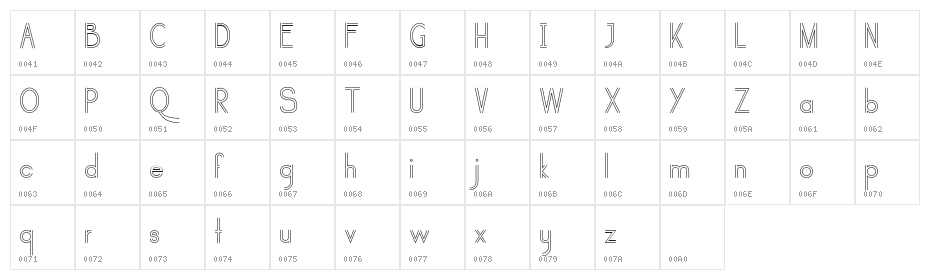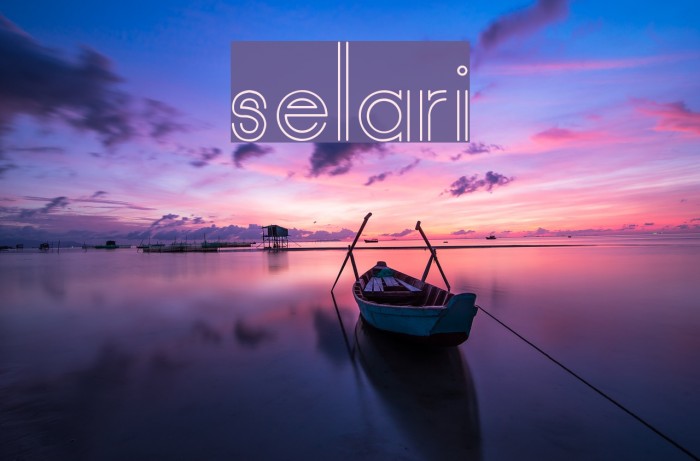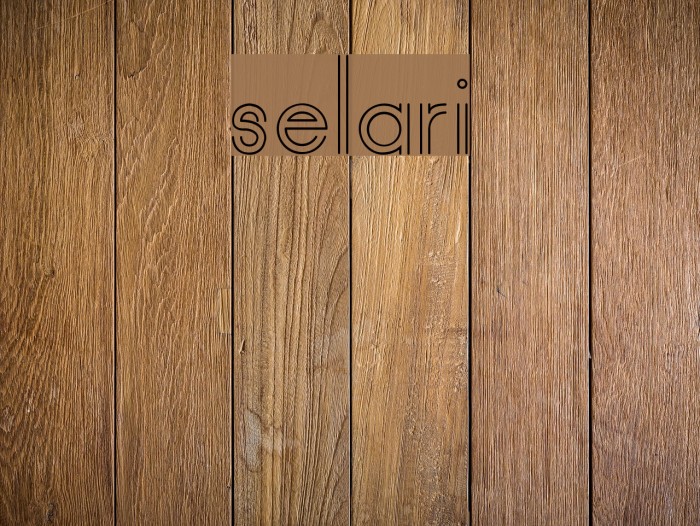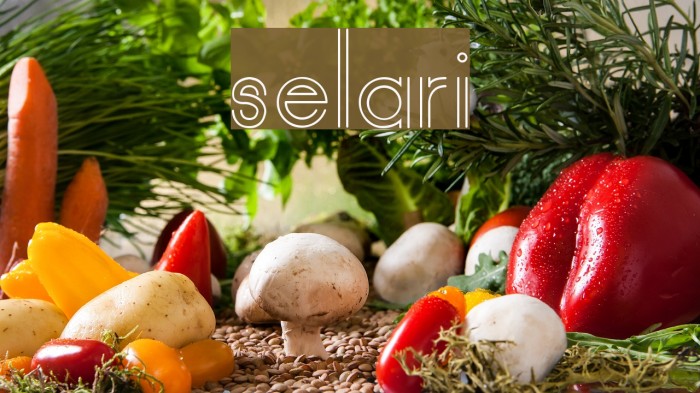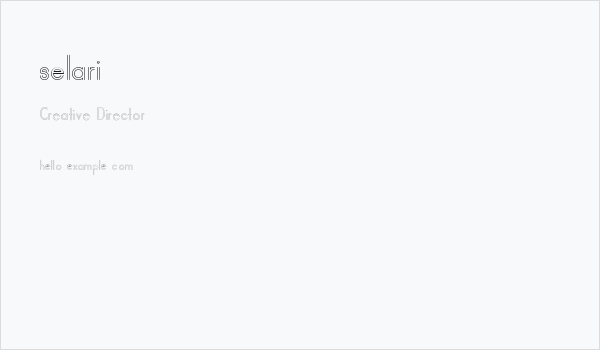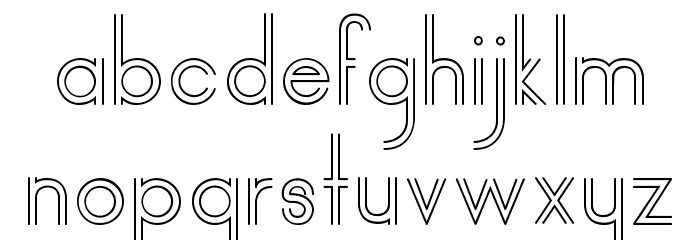
selari Font
selari Description
This font features a modern, geometric design with clean, double-line strokes that create a sense of depth and sophistication. The uppercase letters are tall and narrow, emphasizing verticality, while the lowercase letters maintain a consistent style with rounded edges that soften the overall appearance. The numerals and special characters follow the same geometric pattern, ensuring uniformity across all glyphs. The font's unique double-line structure gives it a distinctive look, making it suitable for creative and artistic projects. Its precise and structured form makes it ideal for contemporary designs that require a touch of elegance and modernity.
| Proposed Projects | Ideal for branding, logos, posters, and modern web design projects. |